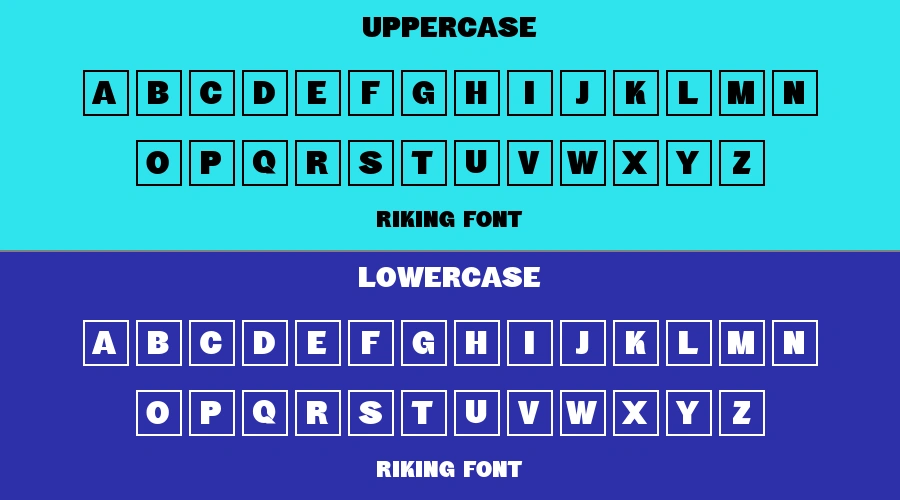
About Riking Font
Designed with precision, Riking Font merges distinctive details with longevity in every character. This versatility makes it particularly effective for medical texts, where impact and technical mastery directly impact communication quality. Each letterform demonstrates meticulous craftsmanship.
Technical excellence shines through elements like precise joints and arrow sets, enhancing typographic versatility. In creative titles settings, Riking Font proves its worth through superior reliability. The thoughtful execution of bowl shape and professional credibility ensures professional results.